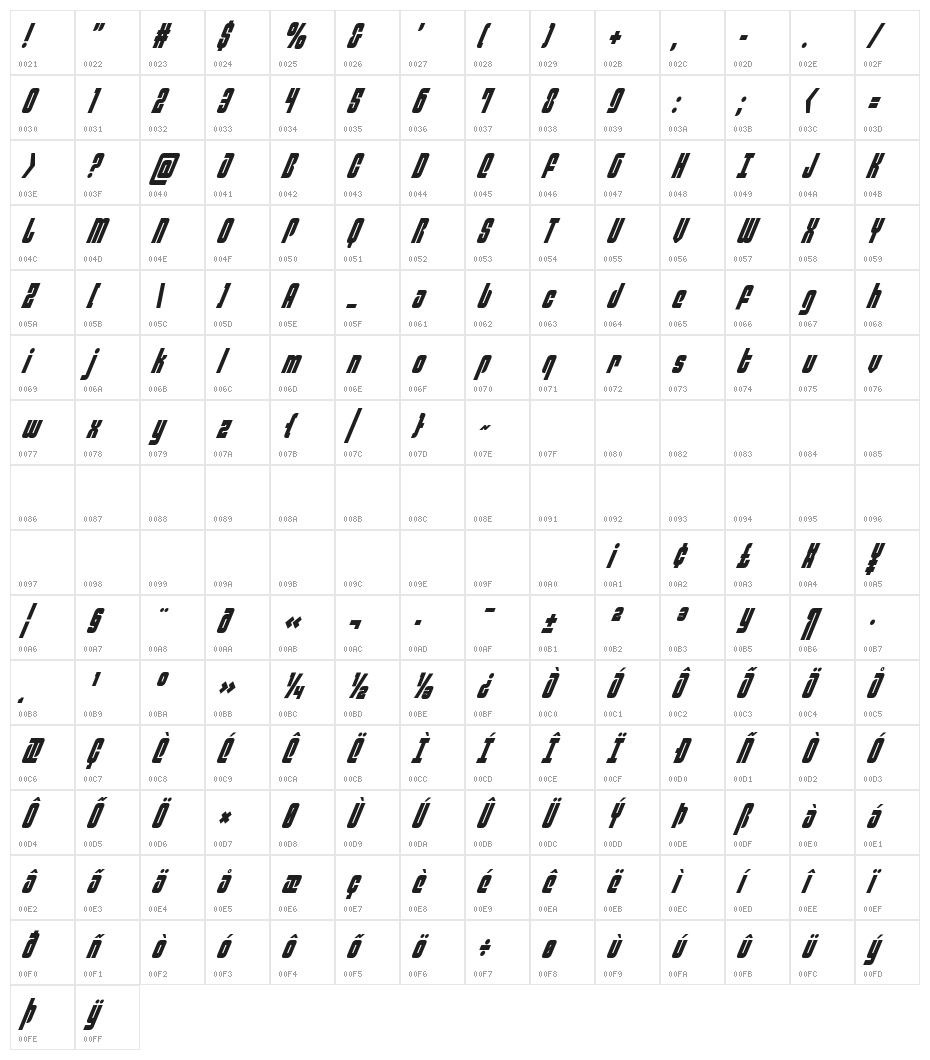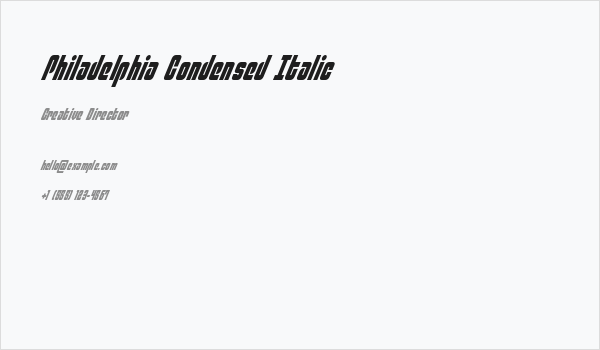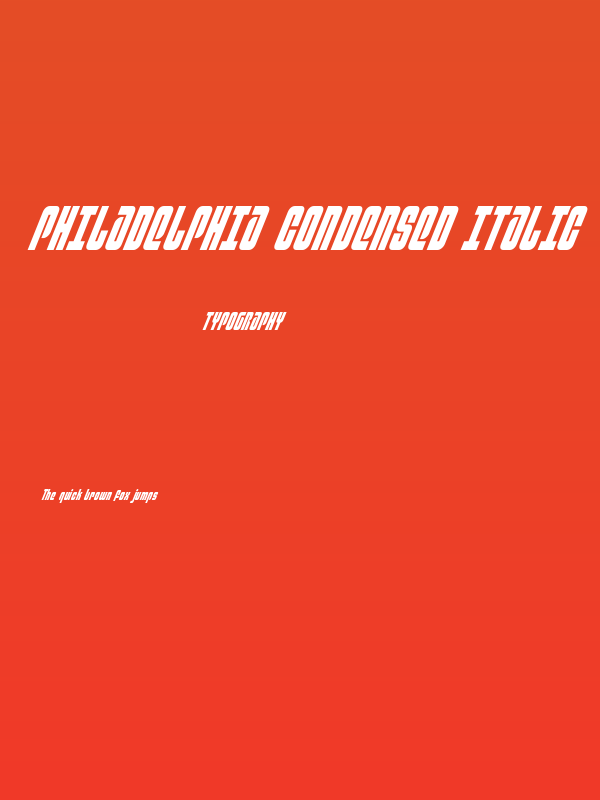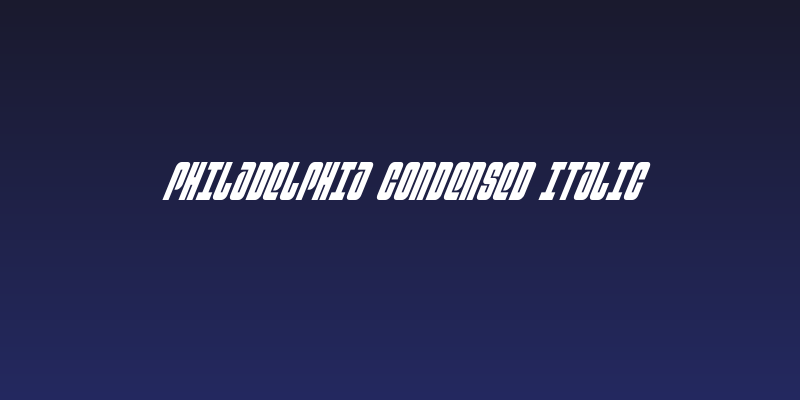
Philadelphia Condensed Italic Font
Philadelphia Condensed Italic Description
This font features a bold and dynamic style with a condensed and italicized form. The characters are tightly spaced, creating a sense of urgency and movement. The uppercase and lowercase letters maintain a consistent slant, enhancing the italic effect. The numbers and special characters follow the same design principles, ensuring uniformity across all glyphs. The strokes are thick and consistent, providing a strong visual impact. This font is ideal for making bold statements and capturing attention in various design contexts.
| Proposed Projects | Ideal for headlines, posters, branding, and any design requiring a bold statement. |